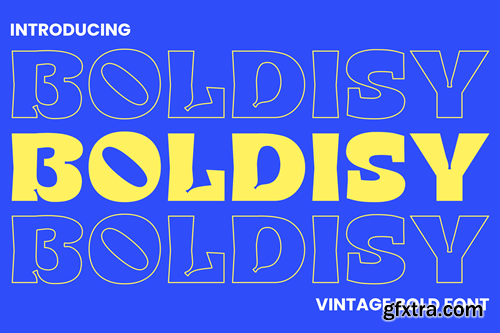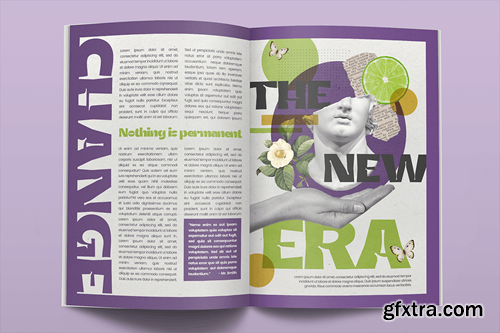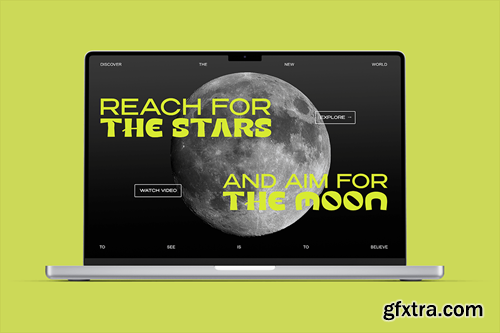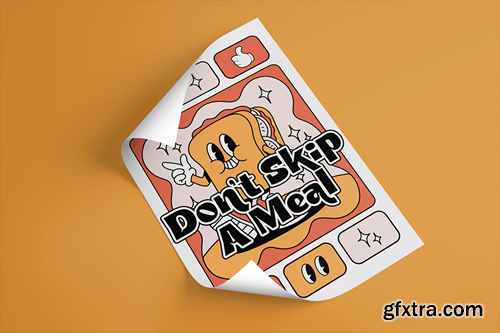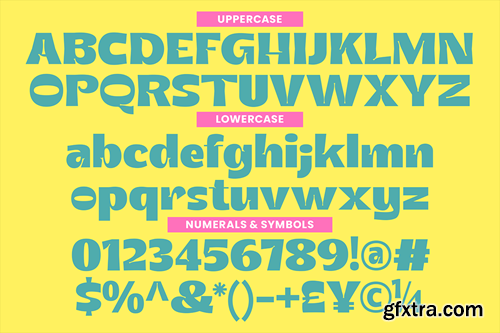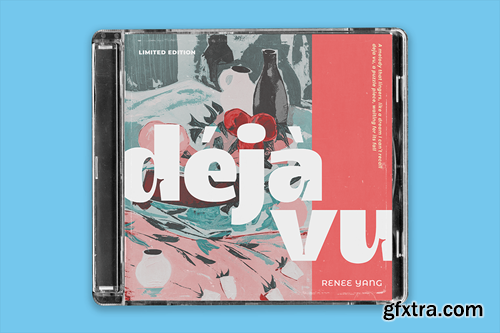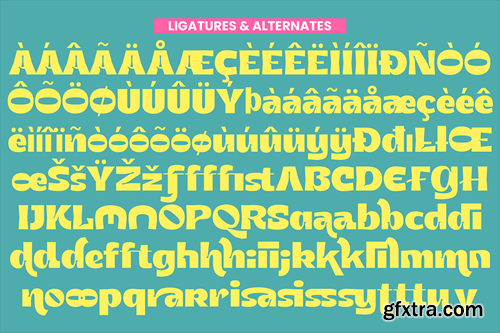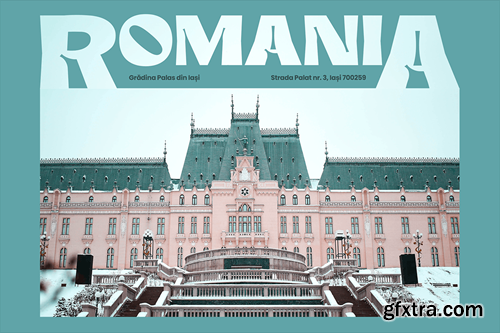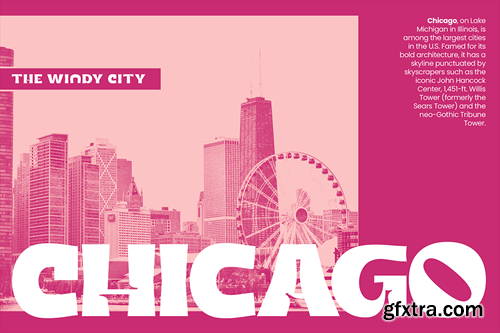
Looking to redefine your brand's aesthetic or infuse an extra layer of character into your projects? Look no further. Introducing Boldisy - A Vintage Bold Font. From logos and posters to packaging and apparel, Boldisy adds timeless appeal and makes a lasting impression. Boost your brand's visual identity with the stylish charm of this font. Enjoy! What you’ll get: Compatible with: Software Requirements: The fonts that you’ll receive in the pack are widely supported by most software. In order to get the full functionality of the selection of standard ligatures (custom-created letters) in the script font, any software that can read OpenType fonts will work. We hope you enjoy this font and that it makes your branding sparkle! Feel free to reach out to us if you’d like more information or if you have any concerns.